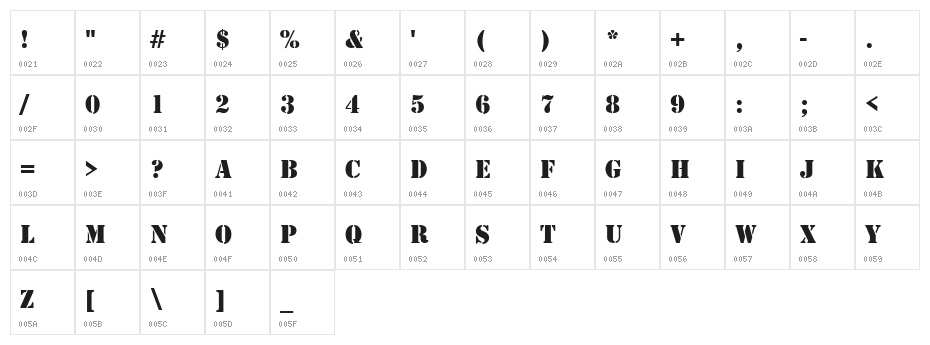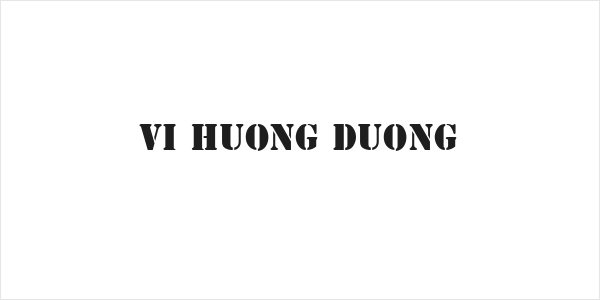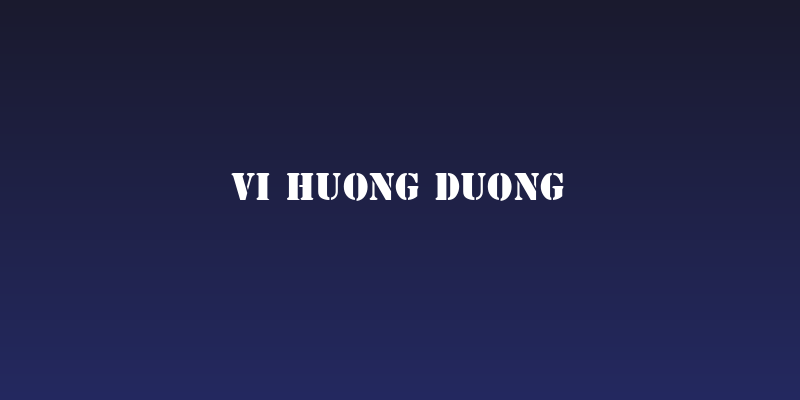
VI Huong Duong Font
VI Huong Duong Description
This font features a bold, impactful design with strong, thick strokes and a distinctive stencil-like appearance. The characters are sharply cut, creating a sense of strength and authority. The uppercase letters are particularly striking, with clean lines and a uniform weight that gives them a robust presence. The numbers and special characters maintain this bold style, ensuring consistency across all elements. This font's design is reminiscent of military or industrial themes, making it ideal for projects that require a commanding and assertive visual impact.